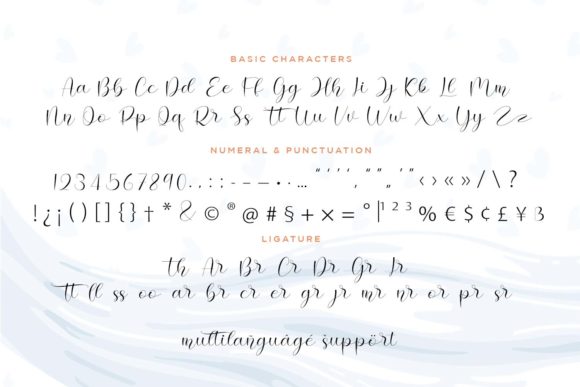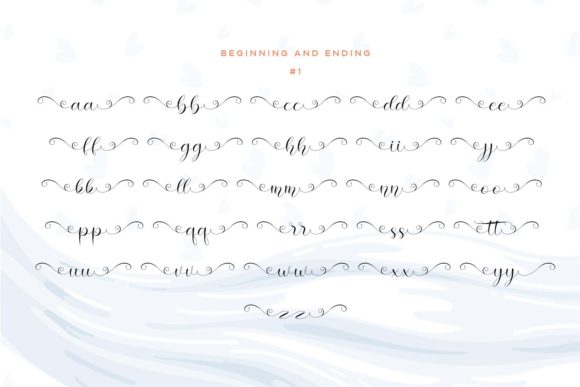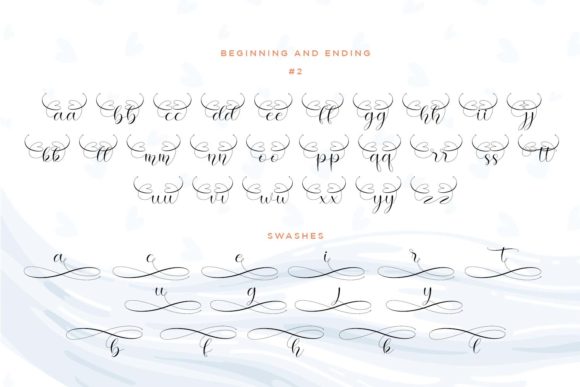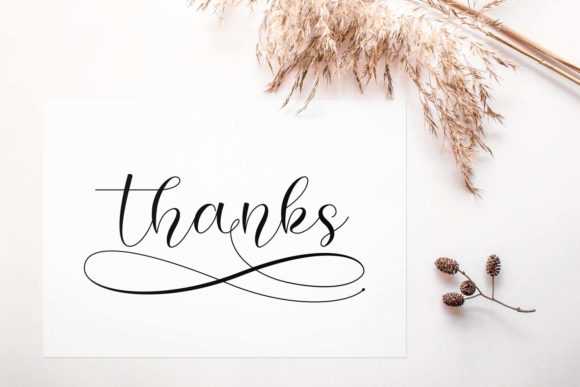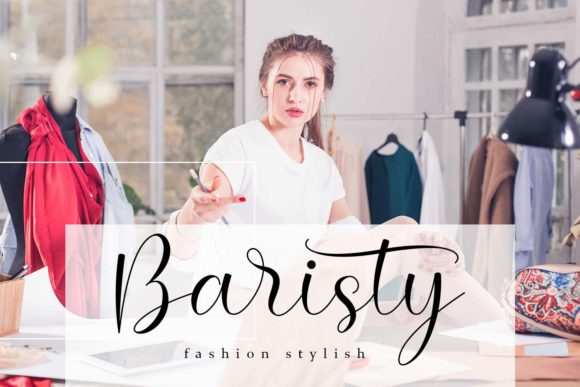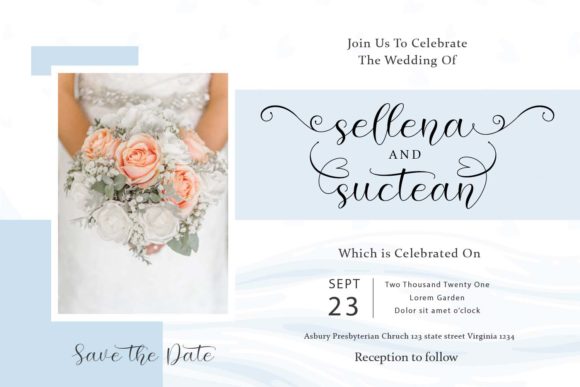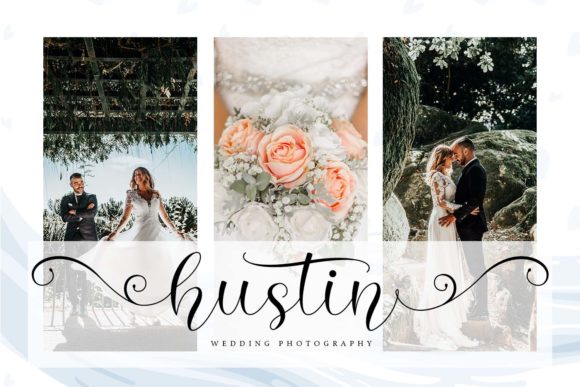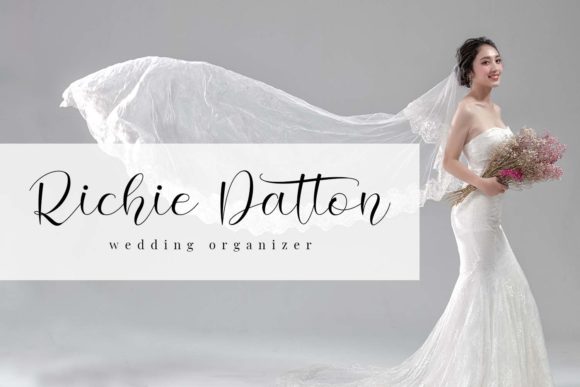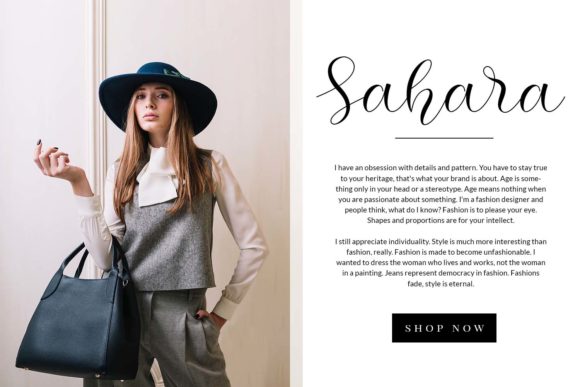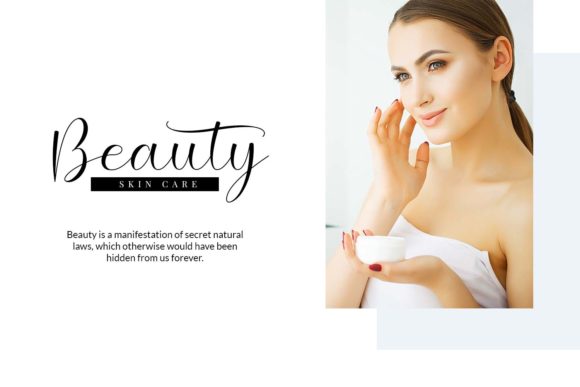
Hello Cristina Font
Hello Cristina is a romantic calligraphy font. It looks gorgeous on wedding invitations, thank you cards, quotes, greeting cards, logos, business cards and every other design which needs a handwritten touch.